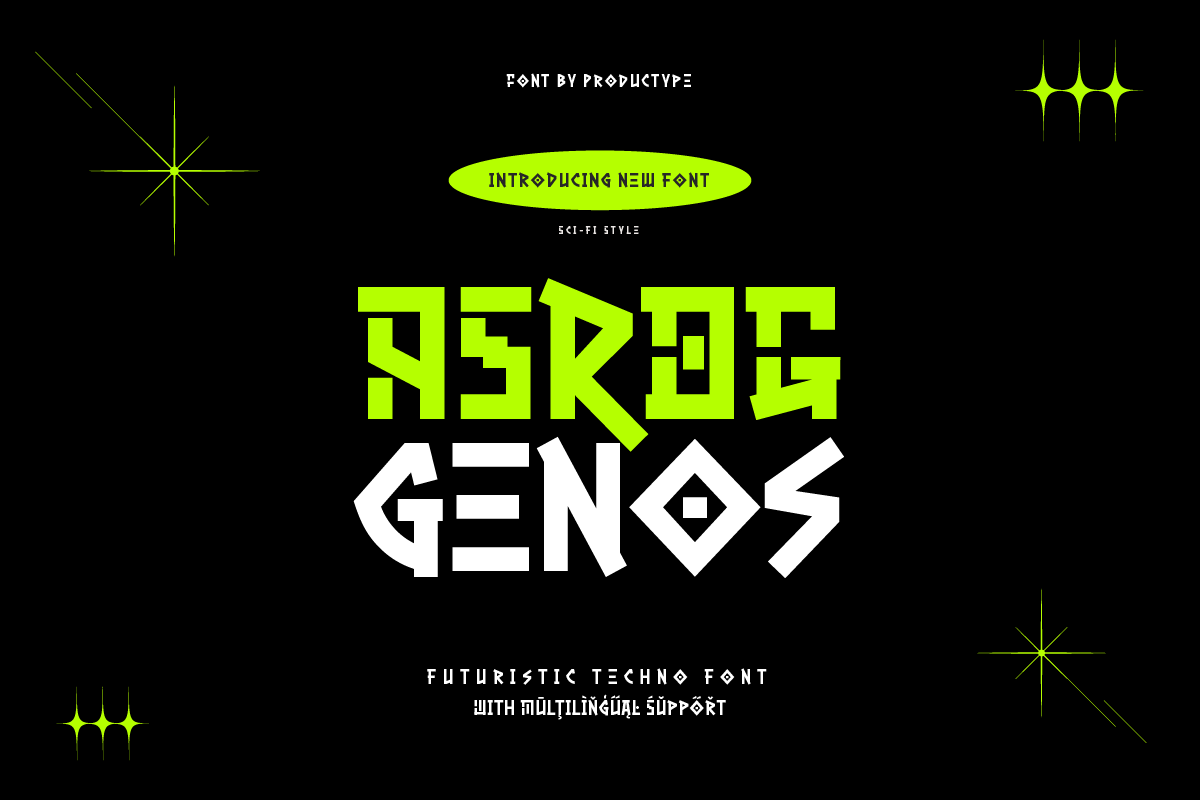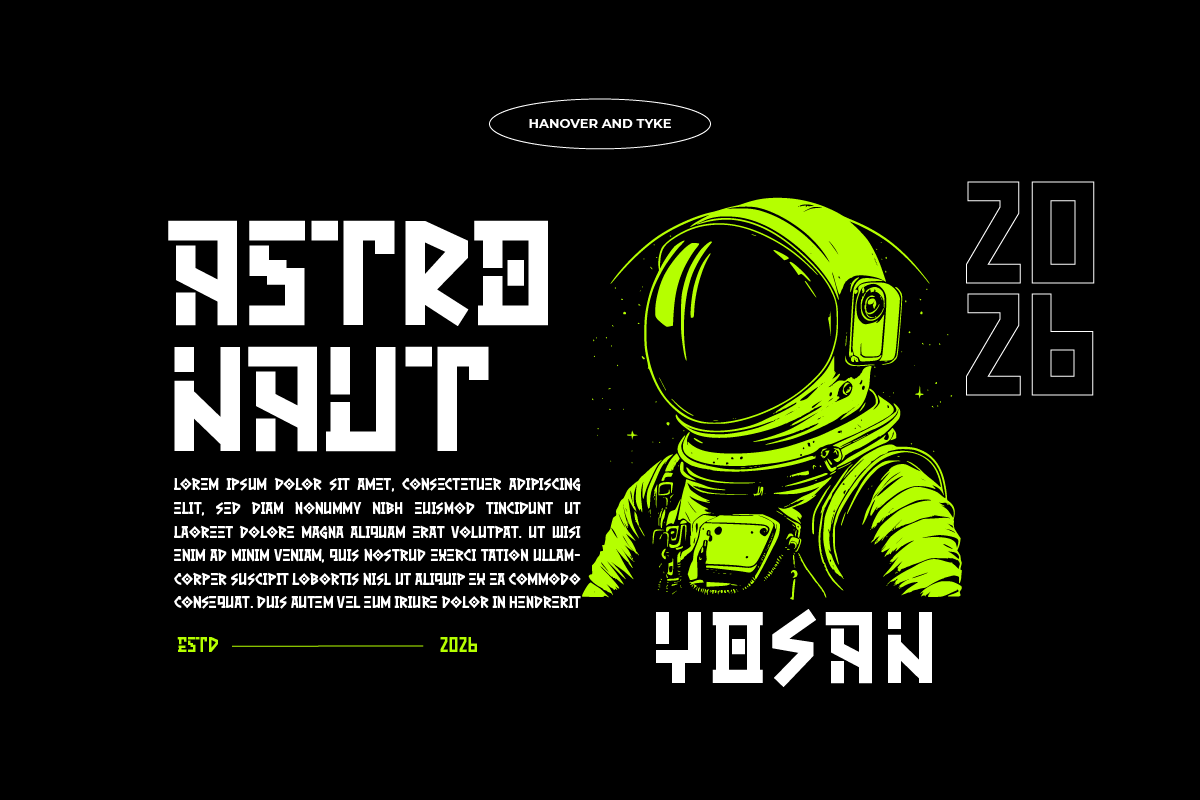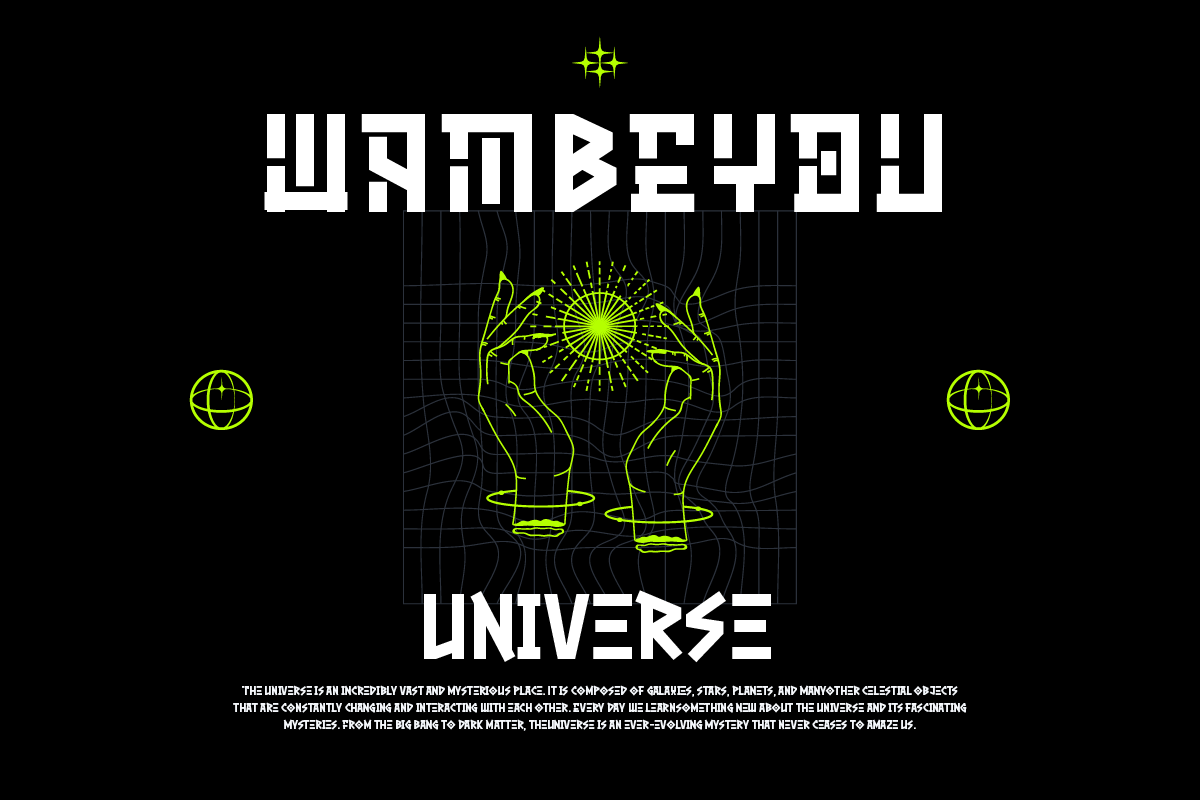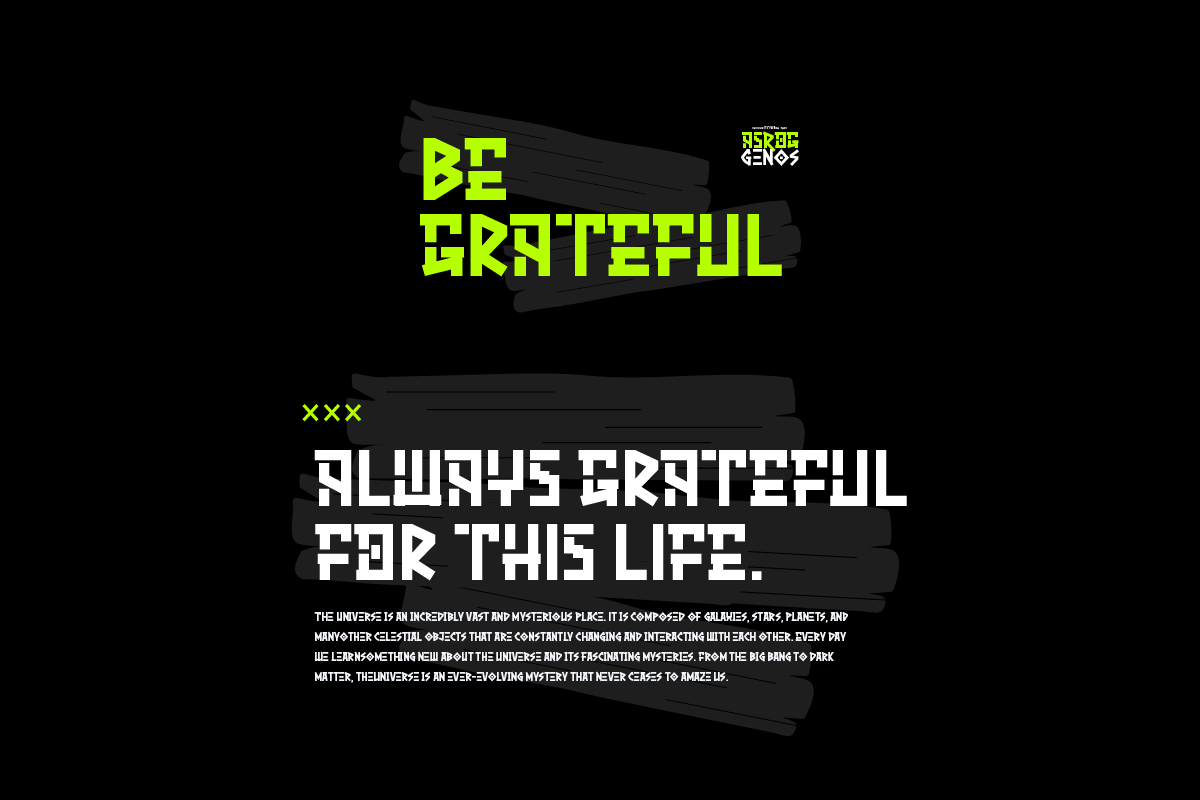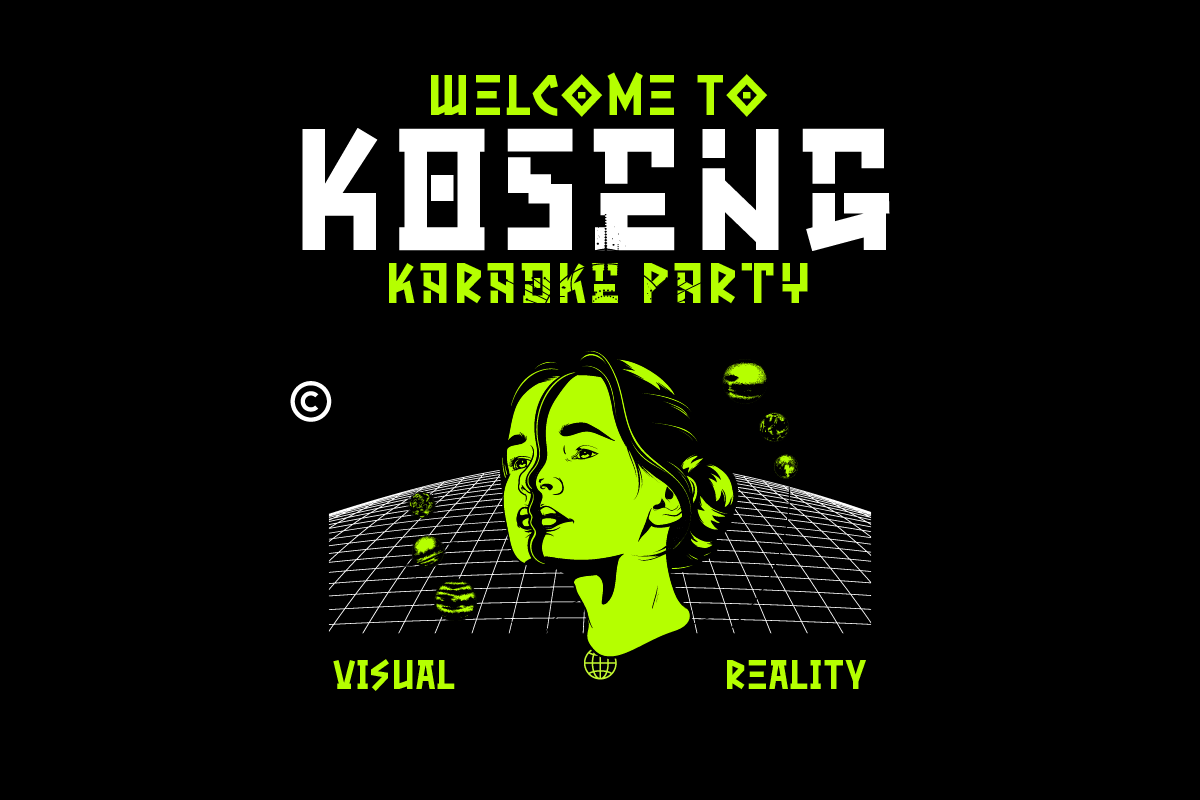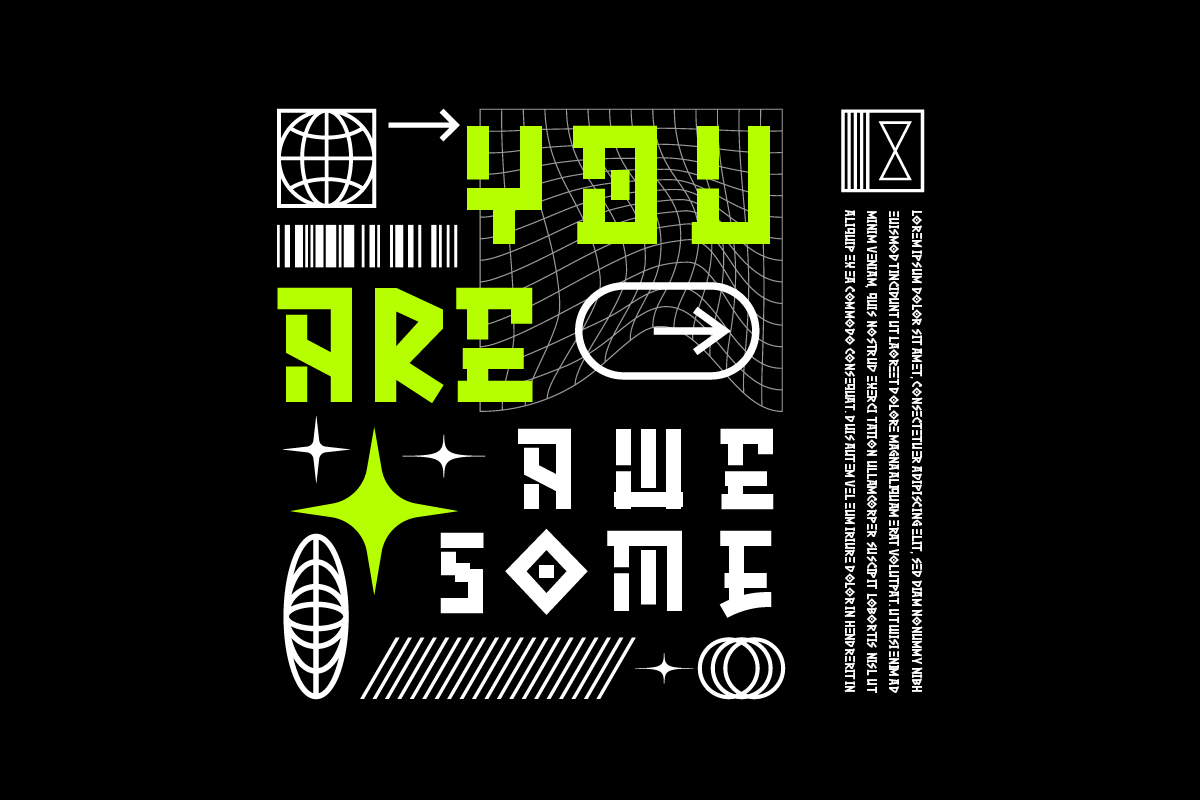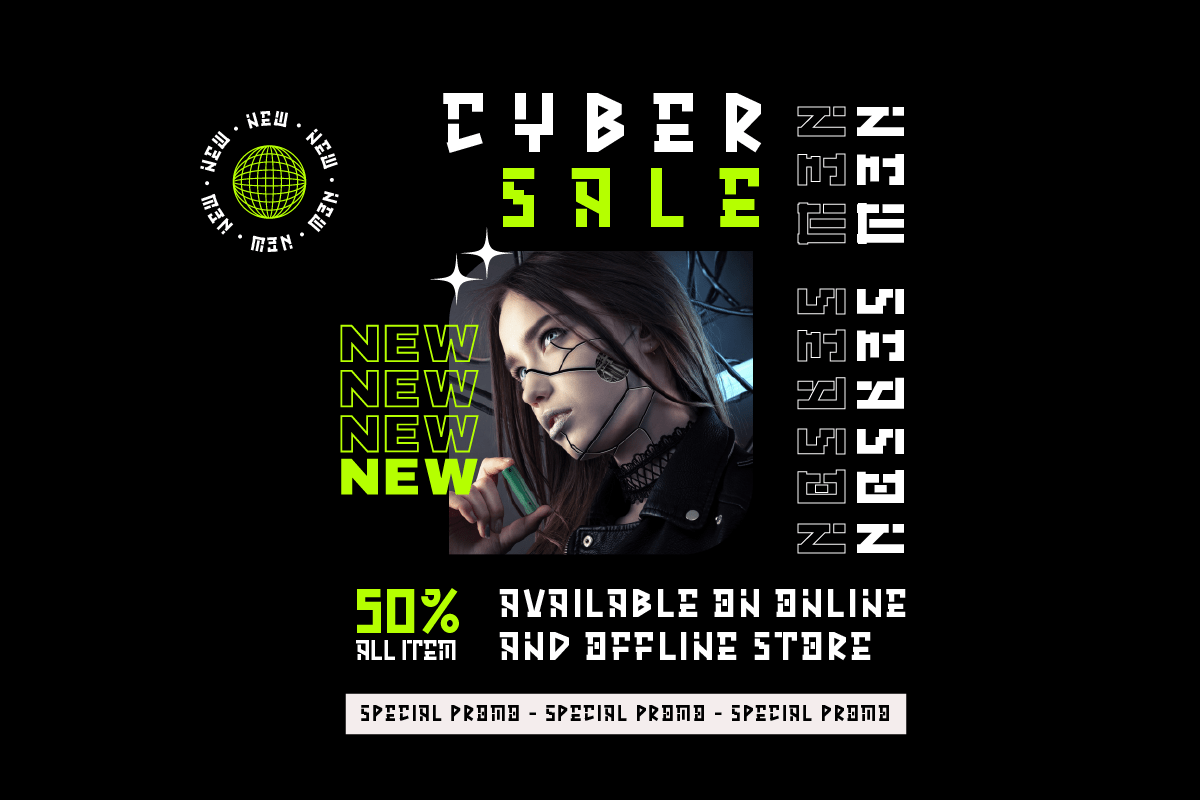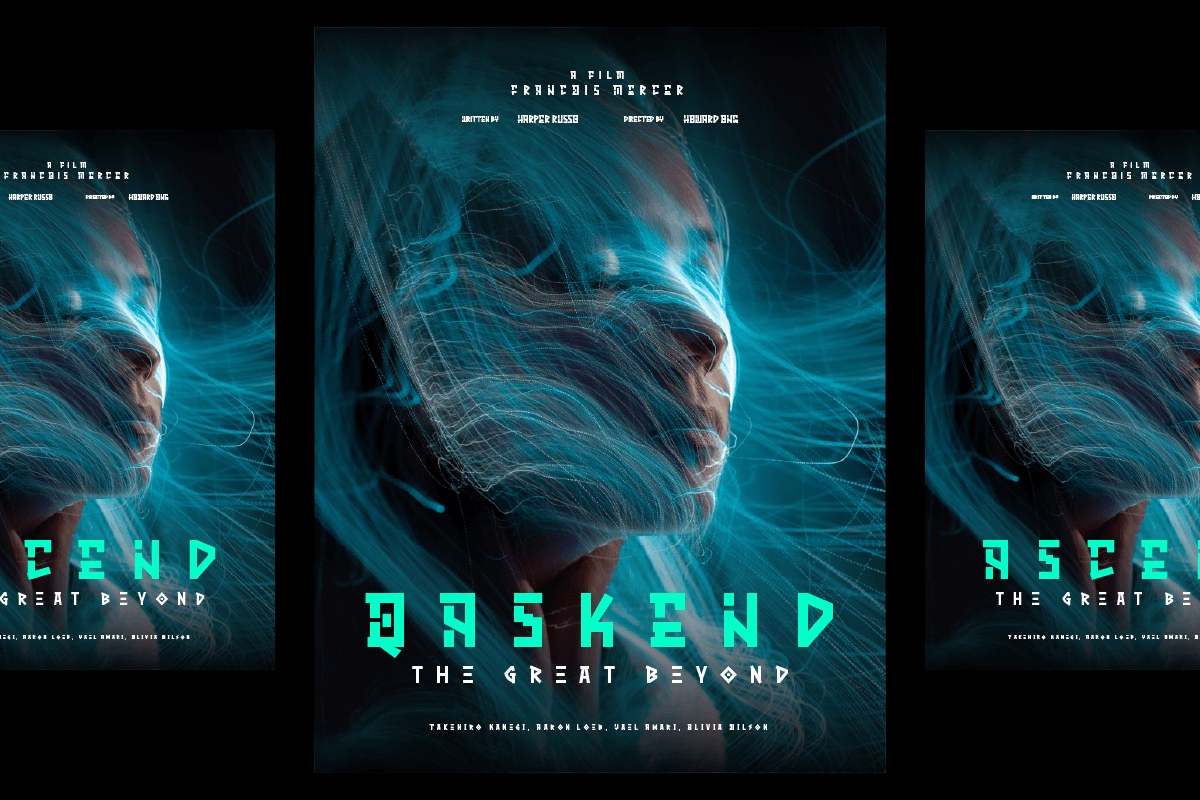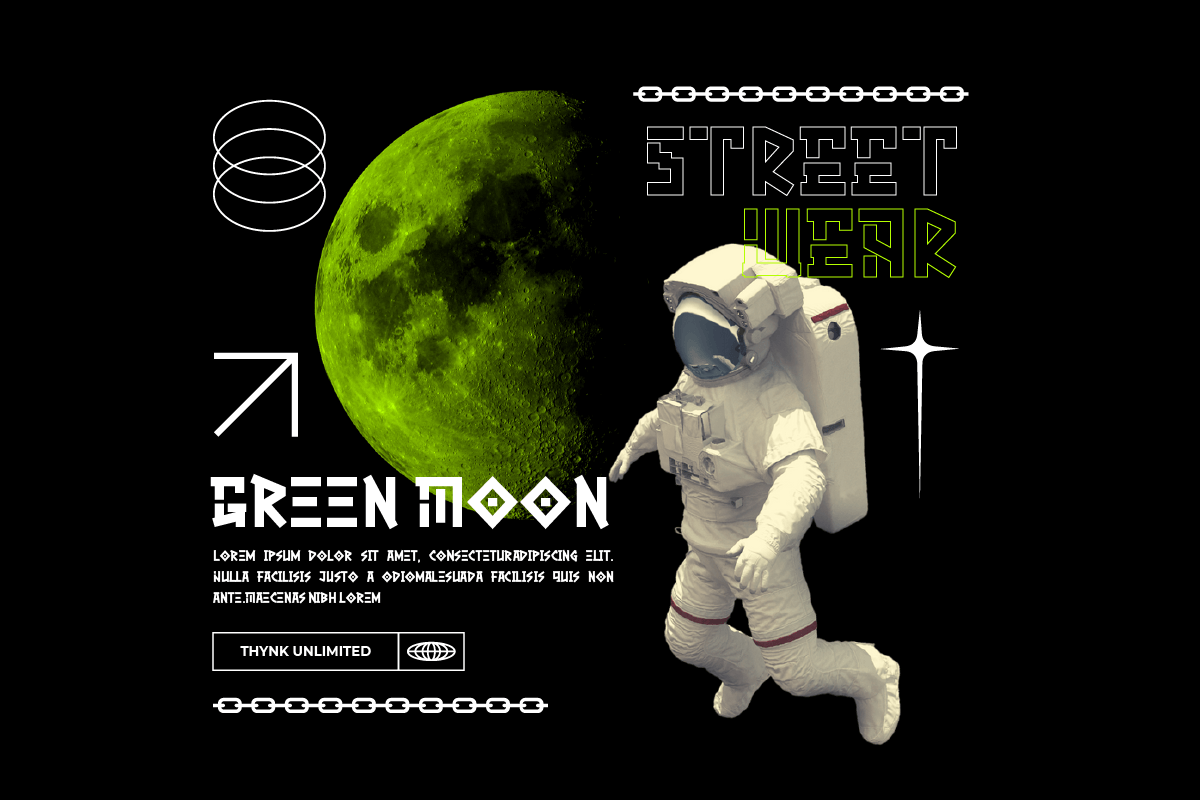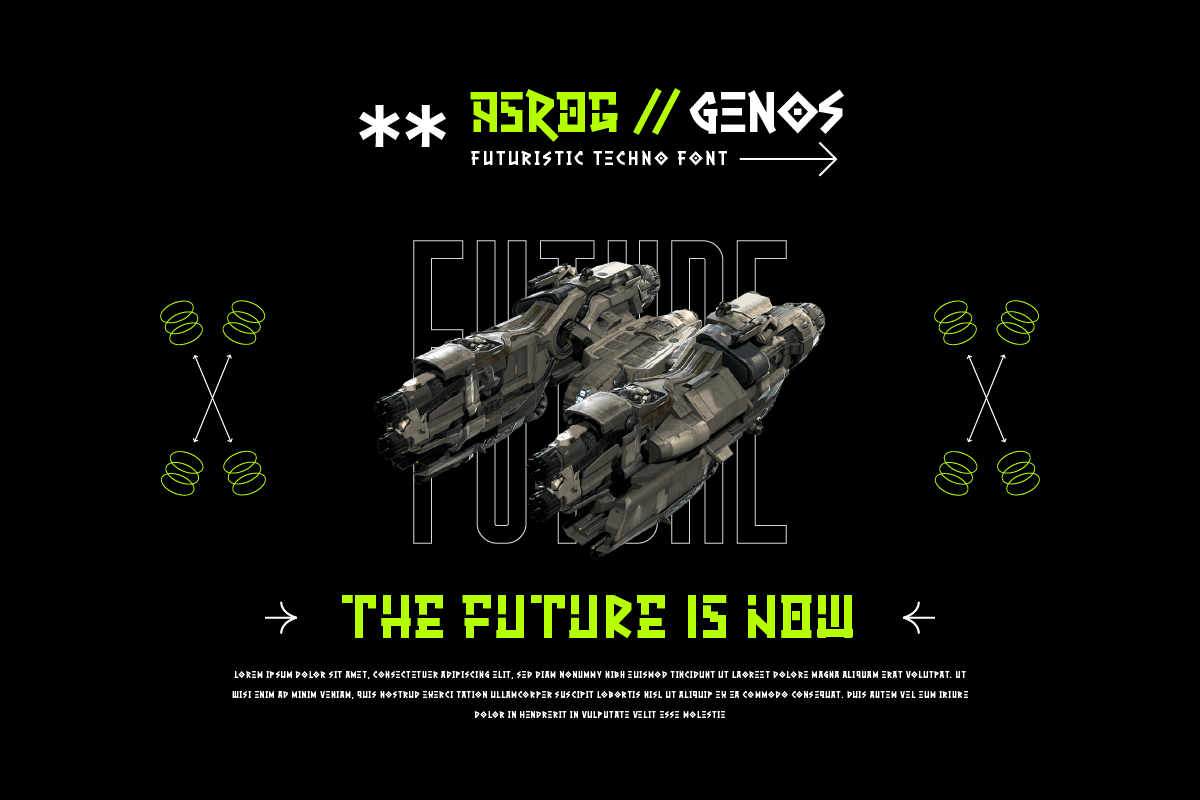
Asrog Genos – Futuristic Tech Font
ASROG genos
Welcome to the future with Asrog Genos, a futuristic technology font that designs each letter with a modern, sophisticated touch.
Every character in Asrog Genos exudes a future feel, giving the appearance of cutting-edge technology. Asrog Genos brings elements of technology into your designs, creating a font that is not only eye-catching but also embraces the essence of innovation.
Asrog Genos is an ideal choice for projects that require a touch of futuristic technology. Whether you are designing user interfaces, technology promotional materials, or other futuristic design elements, this font brings an unmatched modern aura.